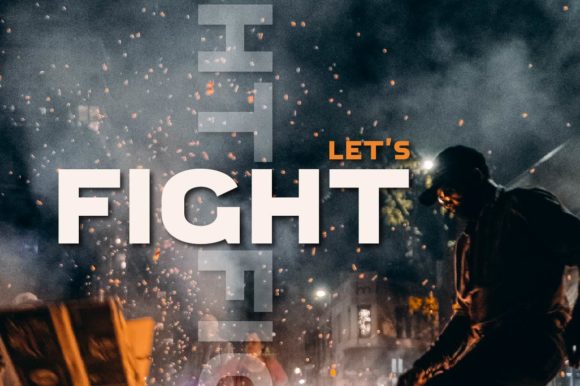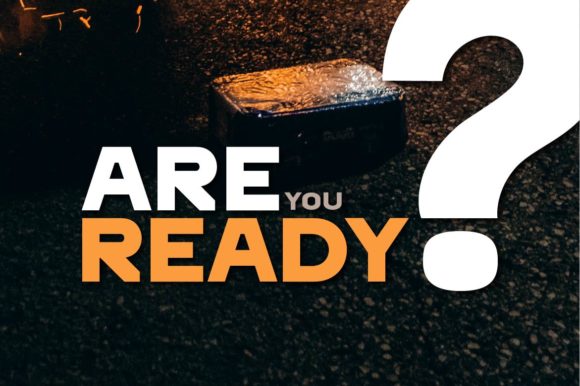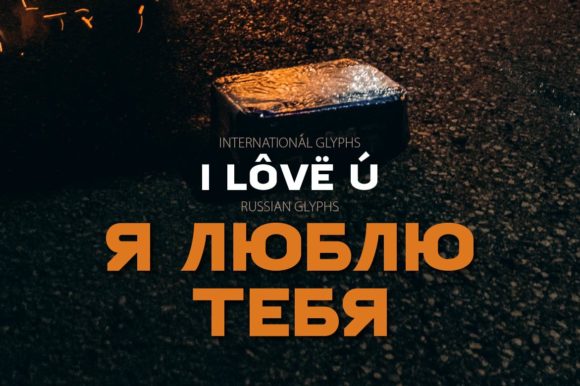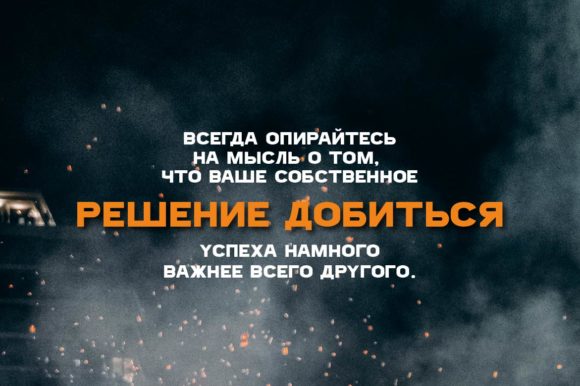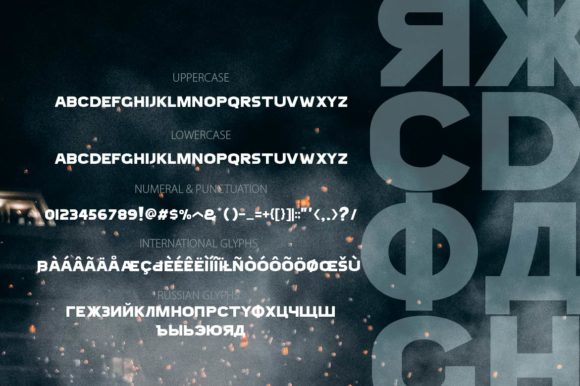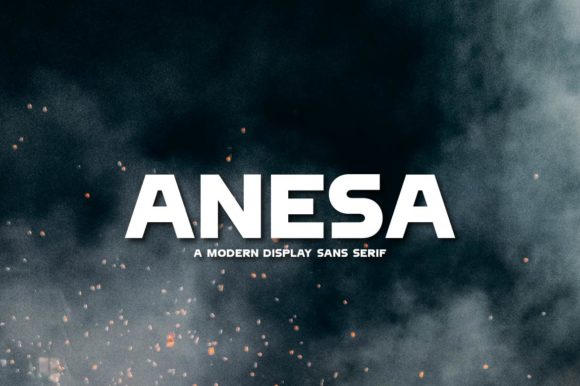
The Power of Anesa Font: Elevate Your Designs with a Bold Statement
I’ll never forget the time I was working on a branding project for a new coffee shop. I had a clear vision of a modern, edgy look, but I was struggling to find the perfect font to capture that vibe. That’s when I stumbled upon Anesa Font, a bold and chunky lettered display font that instantly caught my attention. In this article, I’ll share my experience with Anesa, its features, and how to make the most of it in your designs.
An Honest Review of Anesa Font
So, what makes Anesa Font special? Here are some things I love about it:
- ✨ Bold and eye-catching: Anesa Font is perfect for making a statement in your designs. Its chunky letters demand attention and add a touch of confidence to any project.
- ✅ Highly versatile: Whether you’re working on a logo, poster, or social media graphic, Anesa Font adapts seamlessly to different contexts.
- 💡 Easy to read: Despite its boldness, Anesa Font remains surprisingly legible, even at smaller sizes.
Of course, no font is perfect, and Anesa has a few quirks:
- 🤔 Limited use cases for body text: Anesa Font is best suited for headlines and titles. It’s not ideal for longer blocks of text, as it can become overwhelming.
- ⚠️ Some letters may require manual kerning: While Anesa Font is generally well-spaced, you may need to adjust the kerning for certain letter combinations to achieve optimal results.
The Backstory of Anesa Font
Anesa Font was designed with the goal of creating a bold, attention-grabbing font that’s both modern and versatile. Its chunky letters and clean lines make it perfect for a wide range of design applications. While I couldn’t find any information on the font’s actual designer, it’s clear that Anesa Font was created with the intention of empowering designers to make a statement.
| Font Name | Anesa Font |
| Author | Olexstudio |
| What is Anesa Font best used for? | Anesa Font is ideal for headlines, titles, and emphasis. It’s perfect for making a bold statement in your designs. |
| Is Anesa Font suitable for body text? | No, Anesa Font is not recommended for longer blocks of text. It’s best used for short, attention-grabbing phrases. |